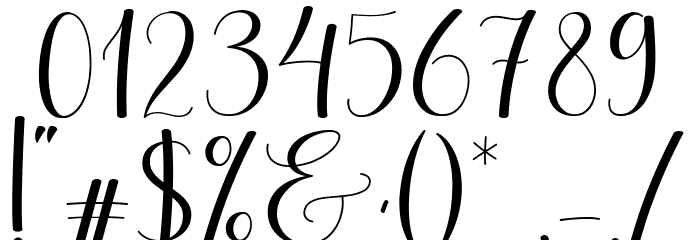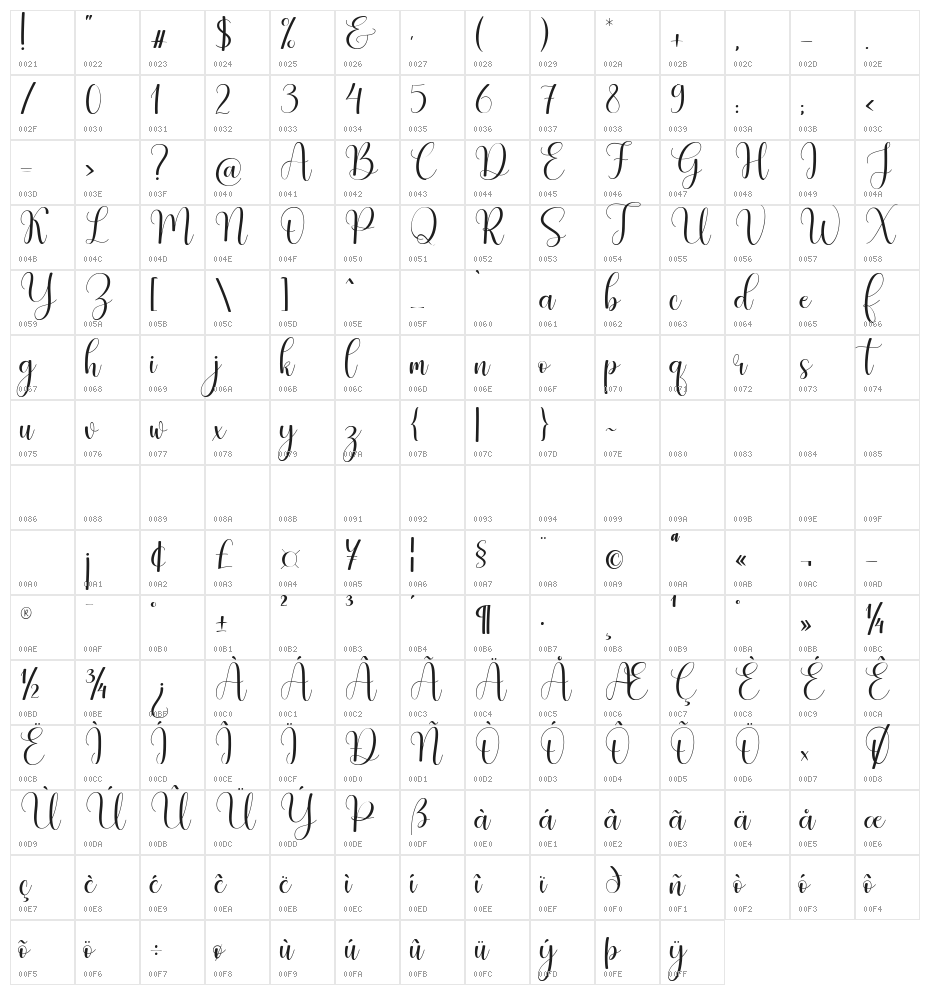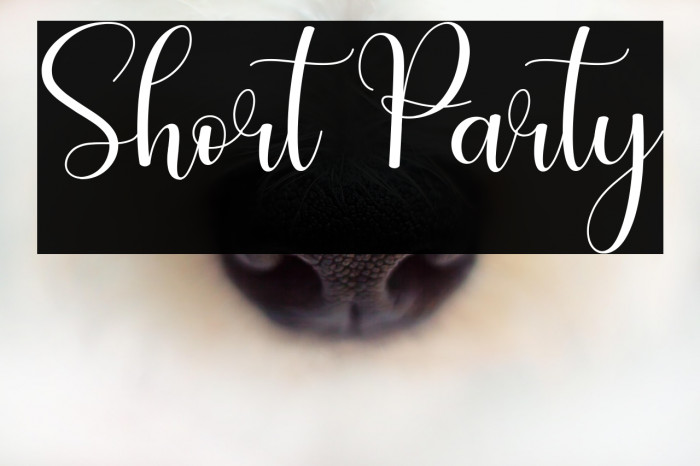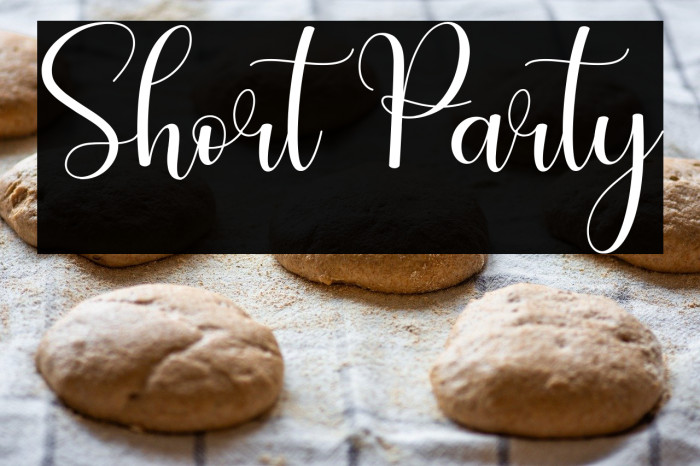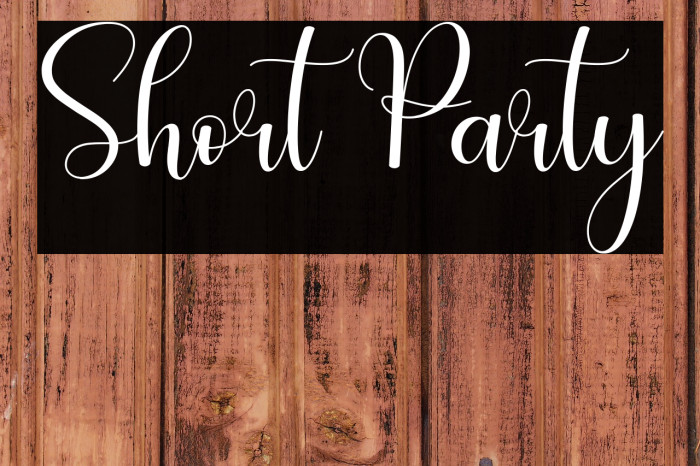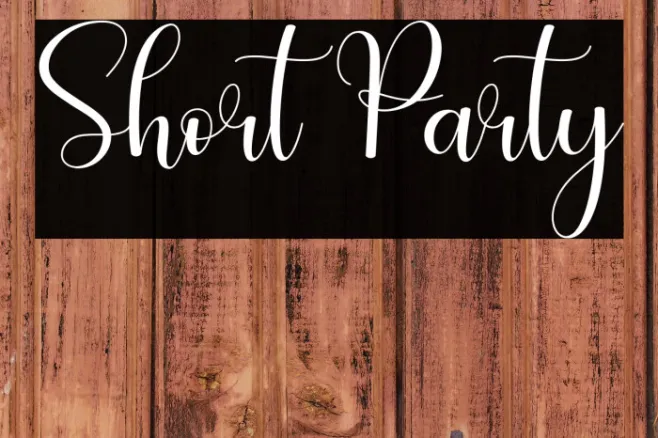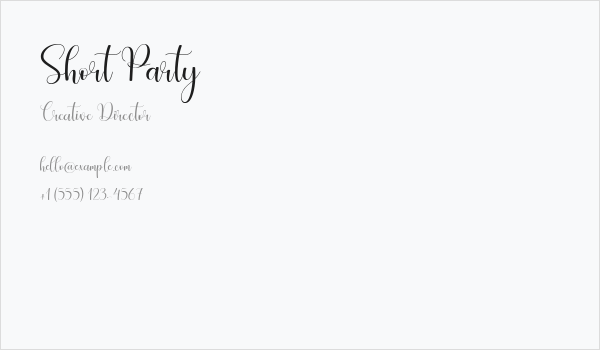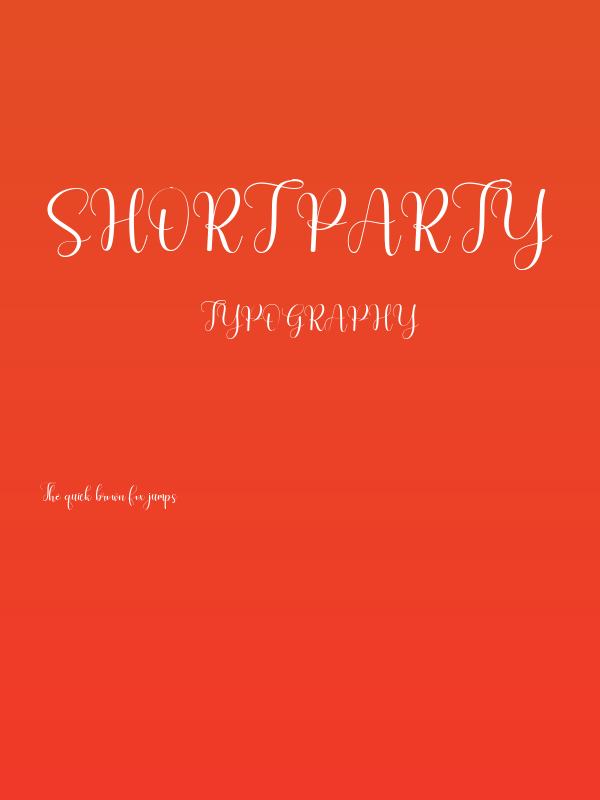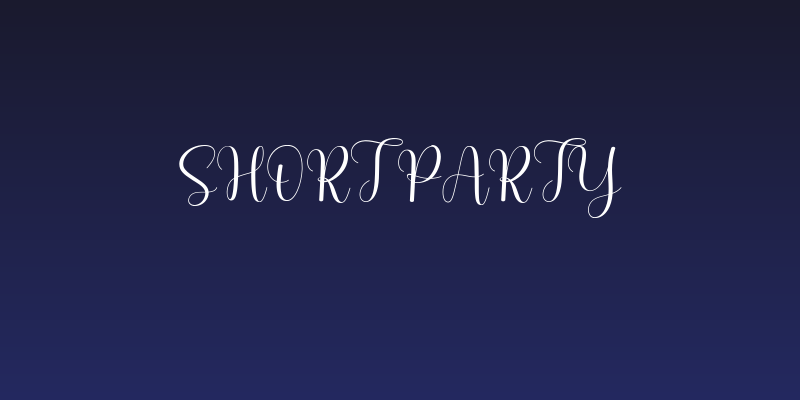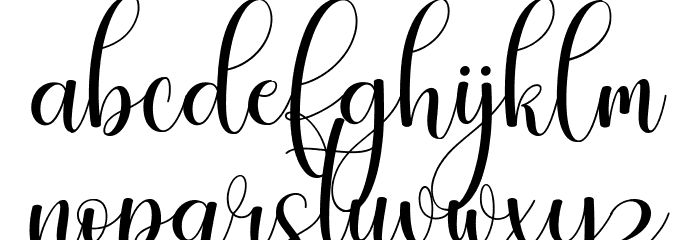
Short Party Font
Short Party Description
This font features an elegant and flowing script style with a modern touch. The uppercase letters are characterized by their tall, slender forms and graceful curves, while the lowercase letters maintain a consistent fluidity, enhancing the overall aesthetic. The numerals are distinct, with a slight slant that complements the script style. Special characters are creatively designed, adding a playful yet sophisticated element to the font. The strokes vary in thickness, providing a medium contrast that enhances readability while maintaining an artistic flair. This font is perfect for projects that require a touch of elegance and creativity.
| Proposed Projects | Ideal for wedding invitations, greeting cards, branding, and elegant logos. |